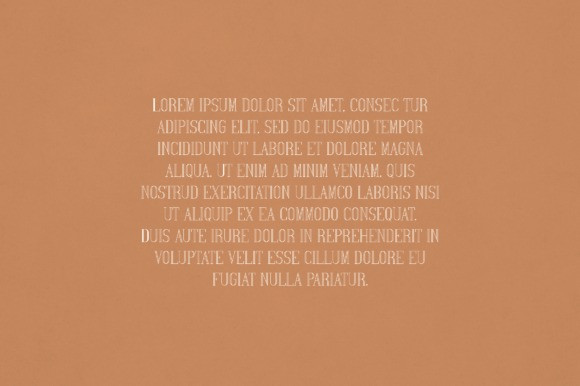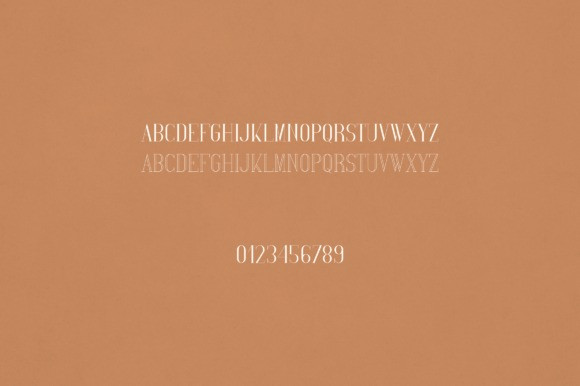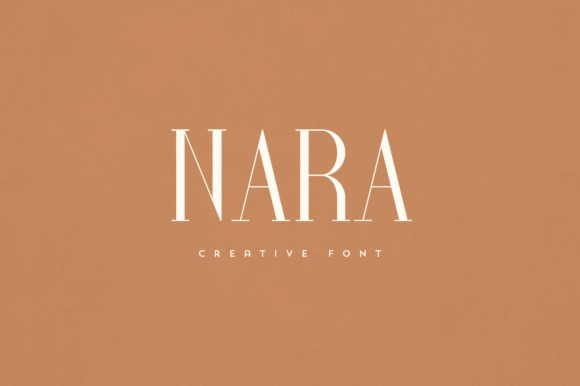
Nara Font
Nara Font is an elegant and versatile serif font that will make your typography truly unique! It will enchant every logo, branding, headline, or plain text!